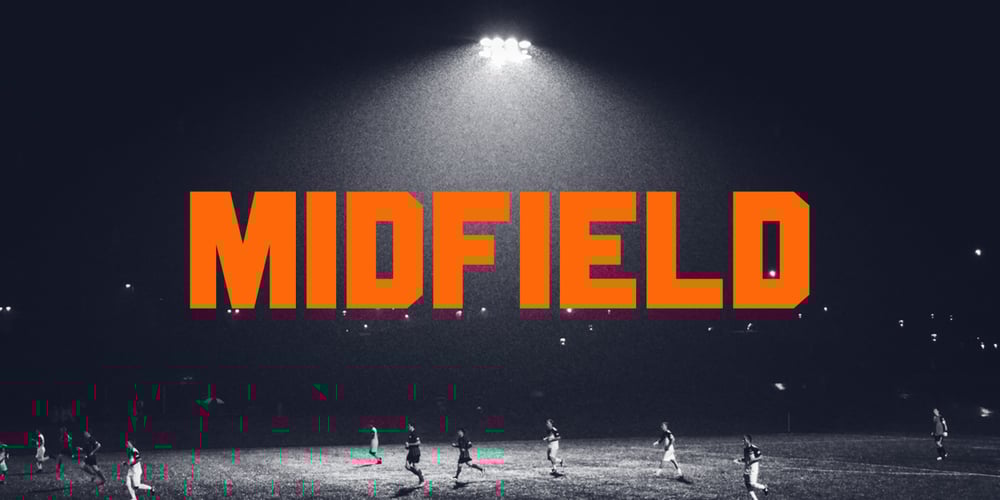
Midfield Font Family was designed by Rendra Diardjo and published by Kreuk Type Foundry. Midfield contains 4 styles and family package options. Introducing MIDFIELD DISPLAY. Midfield Family is All Caps display typeface with solid, masculine, urban, sporty, & bold character. Each glyph is very well suited to make an interesting quote, headline & striking poster design. This font is perfect for logos, badges, clothing, signage, posters, and much more!This font includes standard and extended Latin characters as well as numbers and symbols. Multi-language support.